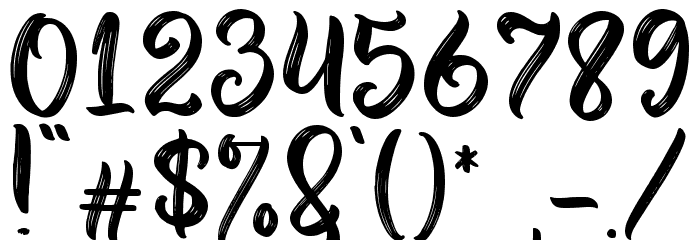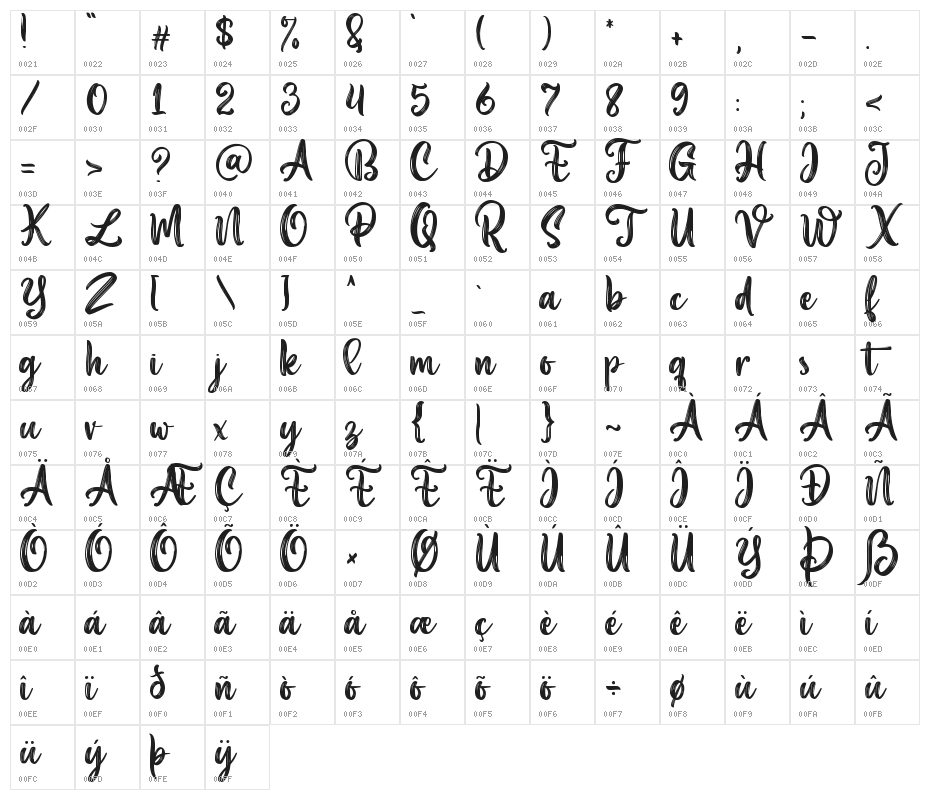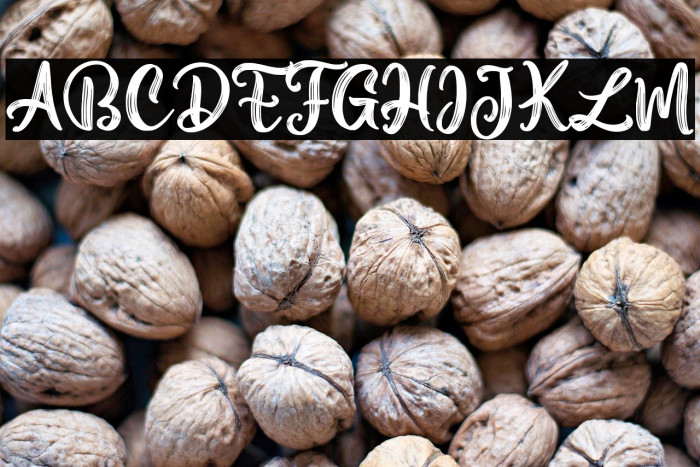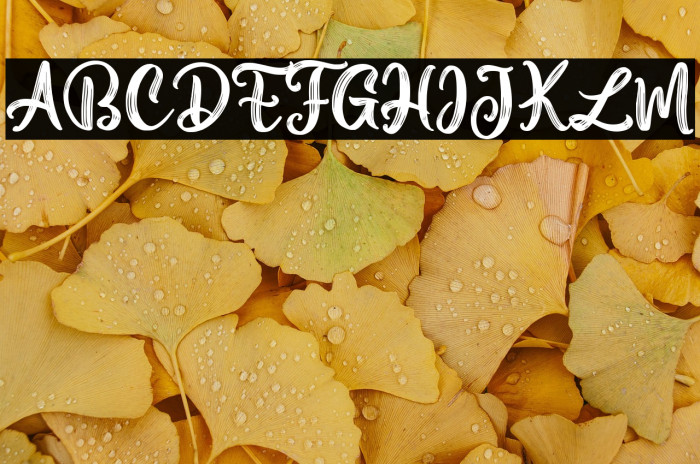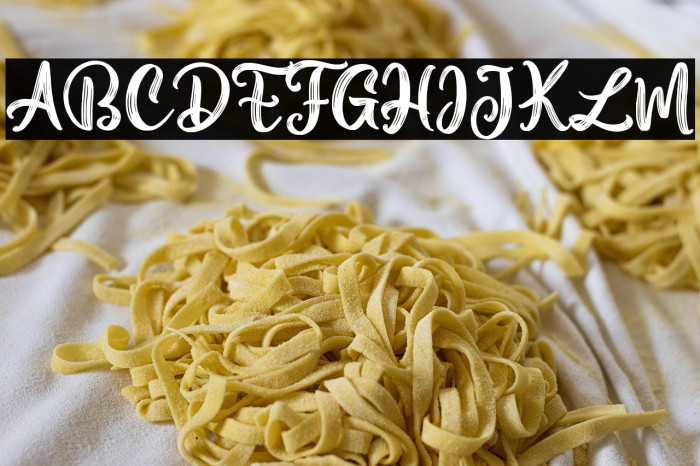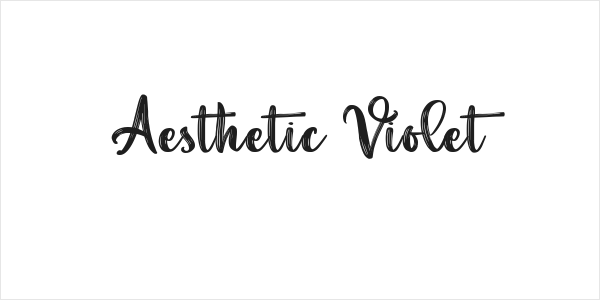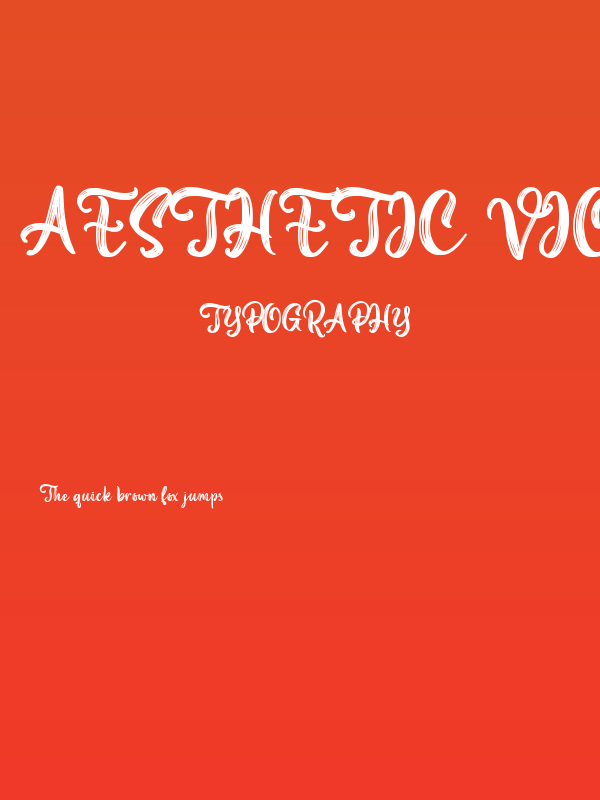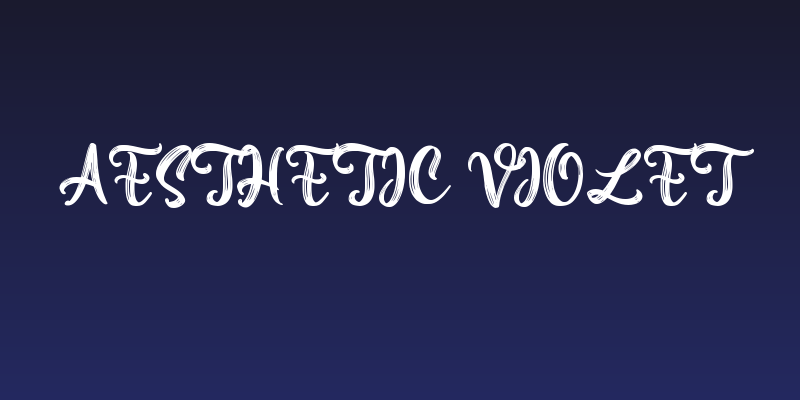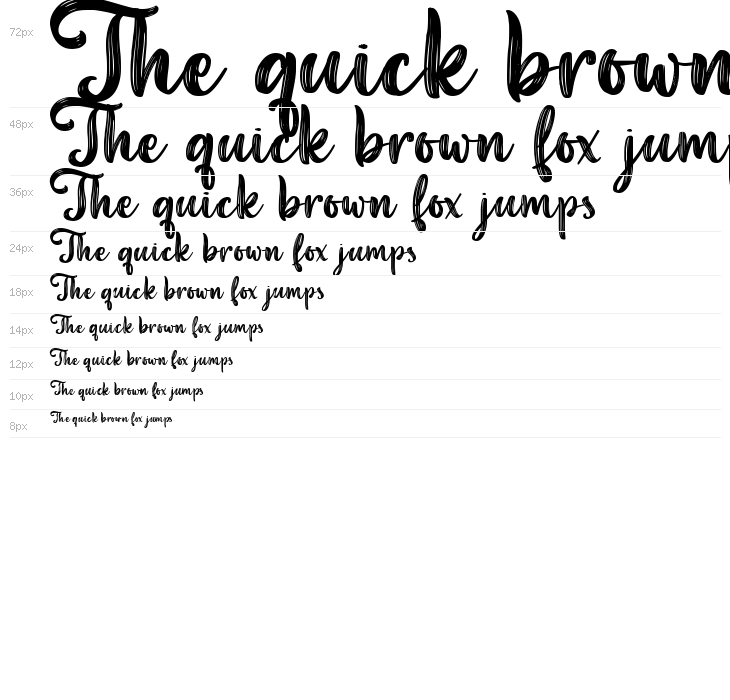
Aesthetic Violet Font
Aesthetic Violet Description
This font features a bold, expressive style with a handwritten script appearance. The characters are fluid and dynamic, with a brush-like texture that adds a sense of movement and energy. The uppercase and lowercase letters maintain a consistent flow, while the numbers and special characters complement the overall aesthetic. The strokes are thick and varied, creating a high contrast that enhances readability while maintaining an artistic flair. This font is ideal for projects that require a personal touch or a creative, informal vibe.
| Proposed Projects | Ideal for greeting cards, invitations, branding, social media graphics, and creative posters. |